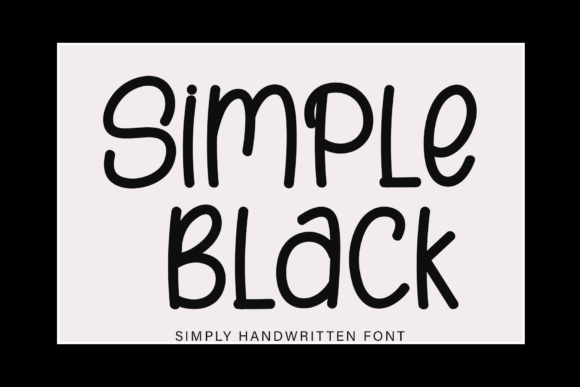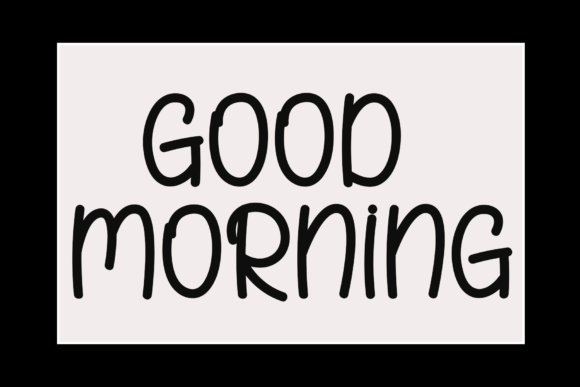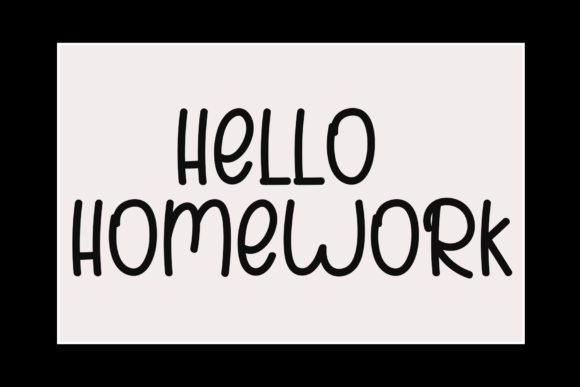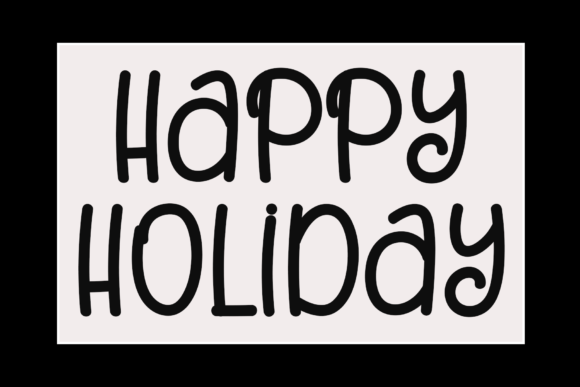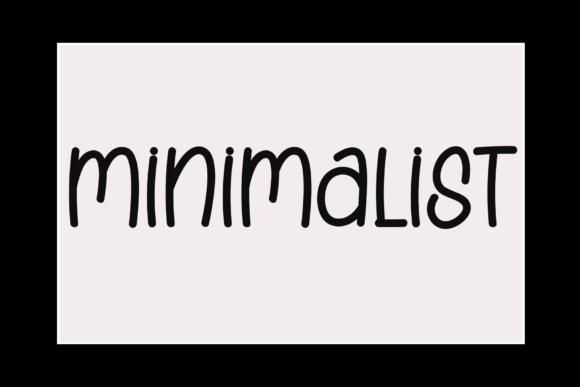
About Simple Black Font
Introducing “Simple Black,” a font that embodies cleanliness, relaxation, and friendliness in its handwritten style. With its neat and simple design, this font is a versatile choice suitable for a wide variety of designs. Its universal appeal makes it a potential favorite and a go-to font for any occasion.
The clean and relaxed aesthetic of “Simple Black” is evident in its well-crafted letterforms. The simplicity of the font adds a touch of ease and approachability, making it ideal for a range of design applications. Whether you’re working on a professional project, casual designs, or anything in between, “Simple Black” adapts seamlessly.
The font’s friendly handwritten style imparts a personal touch to your designs. It carries a warmth that connects with the audience, making it suitable for conveying a message in a way that feels authentic and inviting. From formal documents to more laid-back and casual contexts, “Simple Black” effortlessly bridges the gap.
Due to its neat and simple style, “Simple Black” serves as a versatile companion across various occasions. Whether you’re creating invitations, posters, social media posts, or any other design project, this font’s adaptability ensures that it enhances the overall aesthetic without overpowering the message.
In essence, “Simple Black” is more than just a font; it’s a reliable design tool that brings a sense of cleanliness, relaxation, and friendliness to your projects. Its simplicity makes it a versatile choice, and its handwritten charm adds a human touch that resonates with a wide audience. Embrace the ease and adaptability of “Simple Black” as it becomes your go-to font for creating designs that strike the perfect balance between simplicity and style.